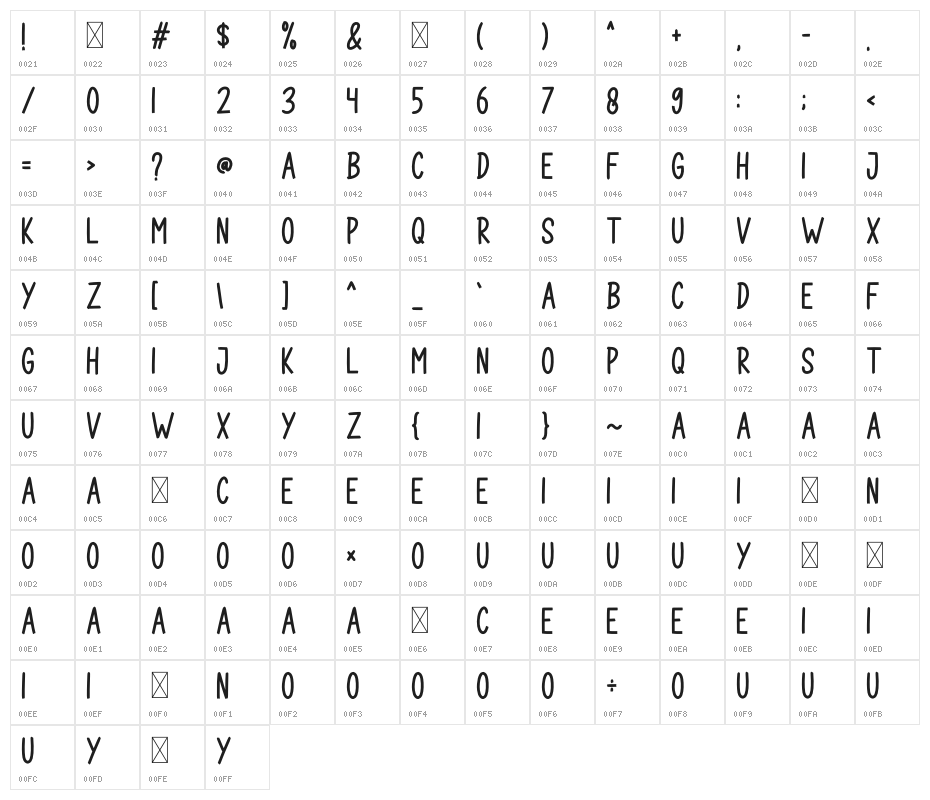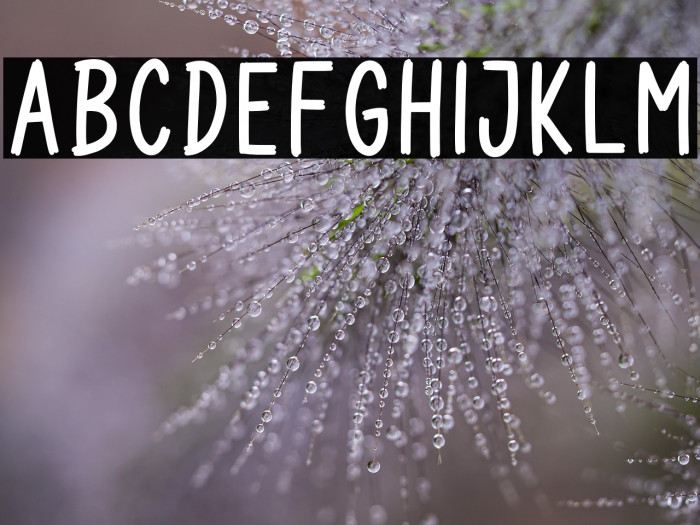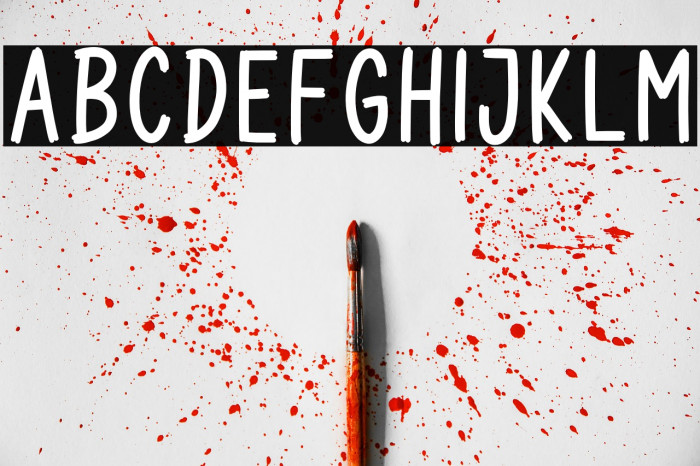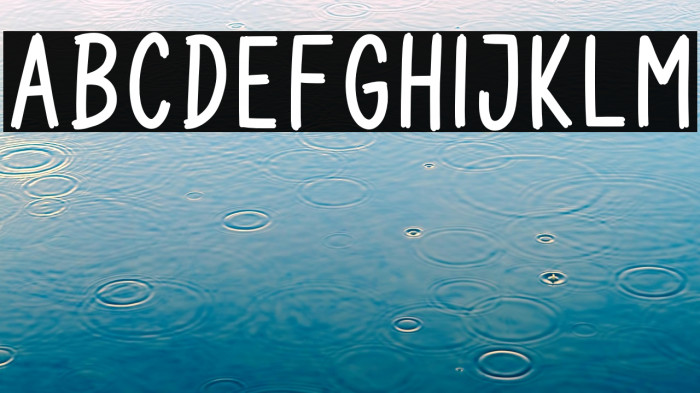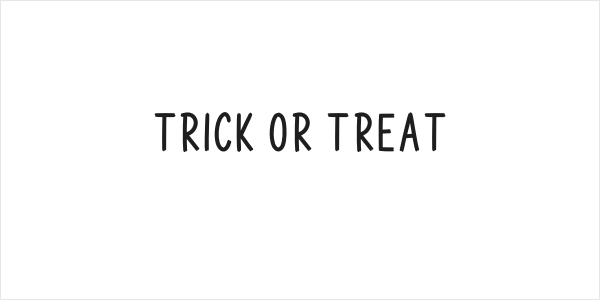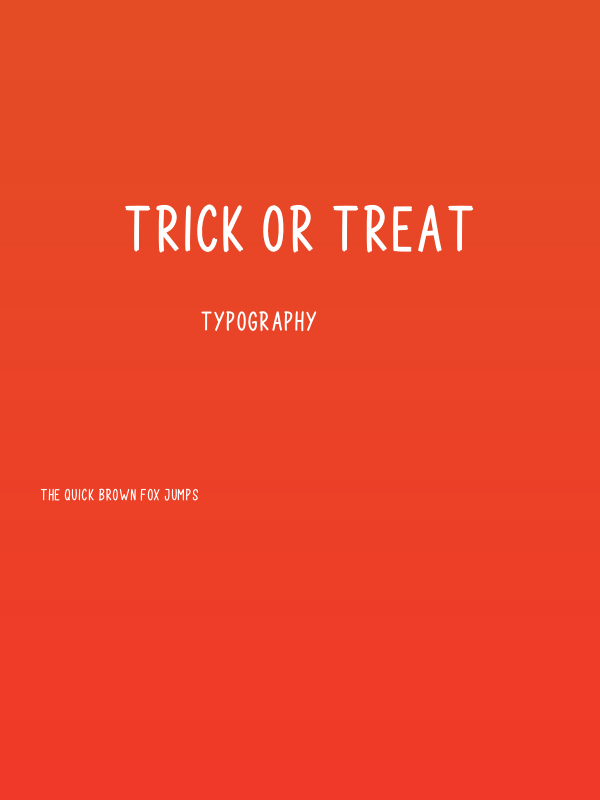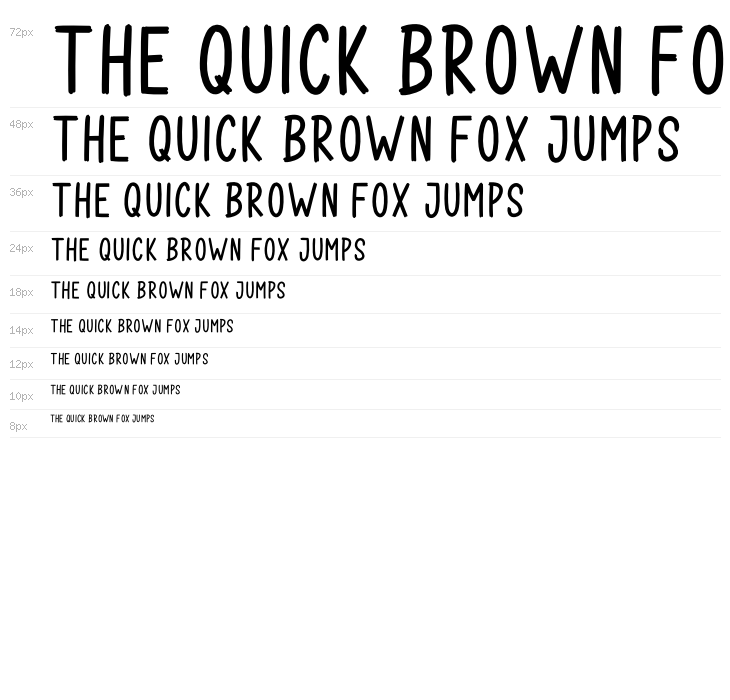
TRICK OR TREAT Font
TRICK OR TREAT Description
This font features a playful and casual handwritten style, characterized by its bold and slightly irregular strokes. The letters are upright with a consistent baseline, giving it a friendly and approachable appearance. The uppercase and lowercase letters maintain a uniform height, enhancing readability. The numerals are clear and distinct, matching the overall style of the alphabet. Special characters are included, adding versatility for various uses. The font's informal nature makes it suitable for creative and fun projects.
| Proposed Projects | Ideal for greeting cards, children's books, posters, and playful branding. |